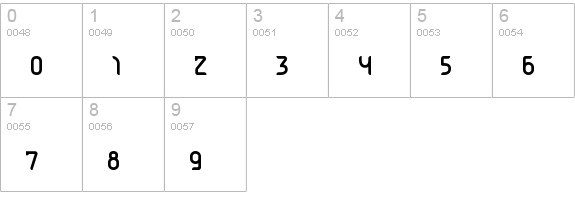
The Pierce Family - NewBold Sans Serif font is a modern and stylish typeface that exudes confidence and sophistication. With its clean lines and bold strokes, this font is perfect for a wide range of design projects, from branding to editorial design. The NewBold Sans Serif font is versatile and easy to read, making it a great choice for both digital and print applications.